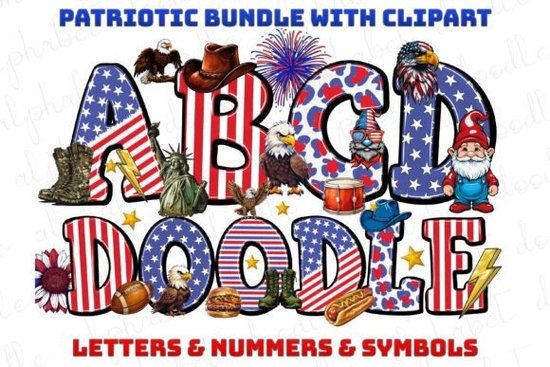
The Patriotic Font is a standout choice for anyone looking to add a touch of national pride to their design work. Whether you're creating t-shirts, banners, or social media graphics, this font brings a bold and meaningful presence to your projects. Its vibrant style captures the essence of freedom and unity, making it ideal for themes related to American heritage, holidays, and community events.
Designed with versatility in mind, the Patriotic Font comes in two versions: a black version and a color version. The black variant works seamlessly with cutting machines like Cricut Design Space, making it a go-to option for crafters and DIY enthusiasts. On the other hand, the color version offers a more dynamic visual experience, perfect for digital designs in programs such as Photoshop, Illustrator, Silhouette, and Inkscape. Keep in mind that the color version’s OTF and TTF files are not compatible with Cricut, so it's important to choose the right version based on your needs.
What Makes the Patriotic Font Unique?
The Patriotic Font isn’t just about appearance it carries a deeper meaning. Its design reflects the values of liberty, courage, and national identity, making it more than just a typeface. This makes it especially appealing for businesses, educators, and hobbyists who want to connect with their audience on an emotional level. Whether you’re designing for a local event, a school project, or a personal endeavor, this font can help tell a story through typography.
One of the key features of the Patriotic Font is its adaptability. It works well in both digital and physical formats, allowing you to use it across different platforms. For example, if you're running a print-on-demand business, this font can be used to create eye-catching merchandise that resonates with customers. Its bold strokes and clear lettering ensure readability without sacrificing style.
How to Use the Patriotic Font Effectively
To get the most out of the Patriotic Font, consider the following tips:
- Choose the right version: If you're using a cutting machine, go with the black version. For digital projects, the color version adds a more vibrant feel.
- Pair it with complementary elements: Combine the font with patriotic colors like red, white, and blue to enhance the overall theme.
- Test it in different sizes: Make sure the font remains legible and impactful at various scales, especially if it will be used in print.
Who Can Benefit from the Patriotic Font?
This font is particularly useful for a wide range of users. Print-on-demand sellers can use it to create custom apparel and accessories that appeal to customers who value American culture. Small businesses looking to build a strong brand identity may find the Patriotic Font helpful for logos, signage, and marketing materials. Educators and students can also benefit from its use in classroom projects, presentations, and school events.
Crafters and hobbyists will appreciate the ease of use, especially with the black version that works with popular cutting tools. Whether you're making personalized gifts or home decor, the Patriotic Font adds a special touch that stands out.
If you're looking for fonts that blend creativity with meaning, the Patriotic Font is a solid choice. Its unique style and practical applications make it a valuable resource for designers, creators, and anyone passionate about expressing national pride through their work.
Before finalizing your design, take a moment to review the compatibility and usage guidelines. This ensures that your project runs smoothly and looks its best. With the right approach, the Patriotic Font can elevate your creative output and bring a sense of purpose to your work.
As you explore your design options, remember that the right font can make a big difference. The Patriotic Font is more than just a style it's a way to express values and connect with others through visual storytelling.
Whether you're a seasoned designer or just starting out, the Patriotic Font offers something for everyone. Try it out and see how it can bring your creative vision to life.